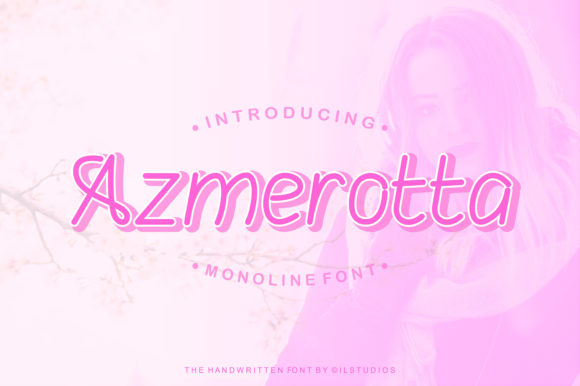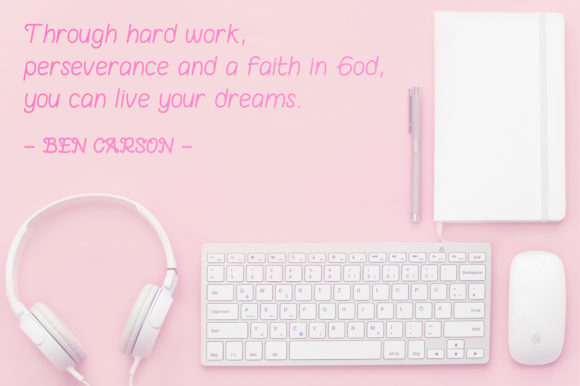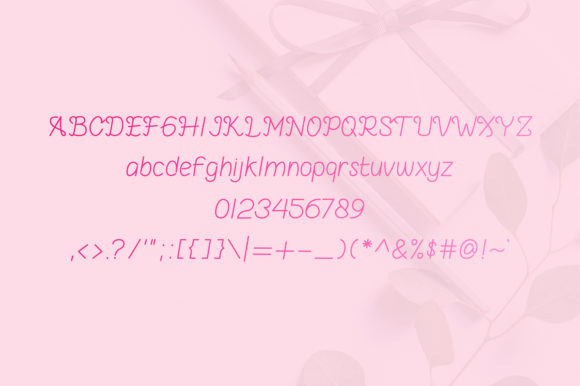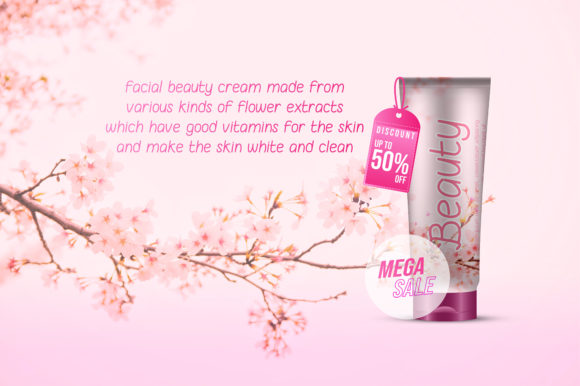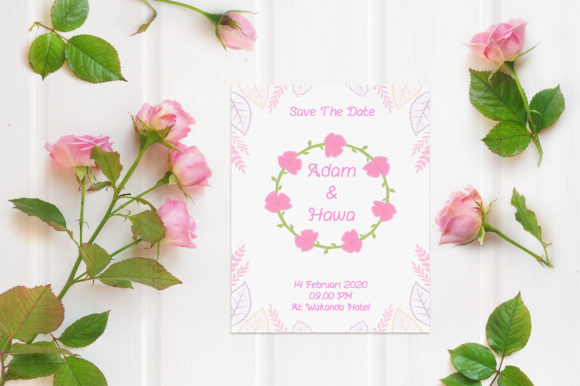
Azmerotta Font
About Azmerotta Font
Azmerotta is a modern monoline style font, each letter has been carefully crafted. It will add a romantic twist to any creative idea!